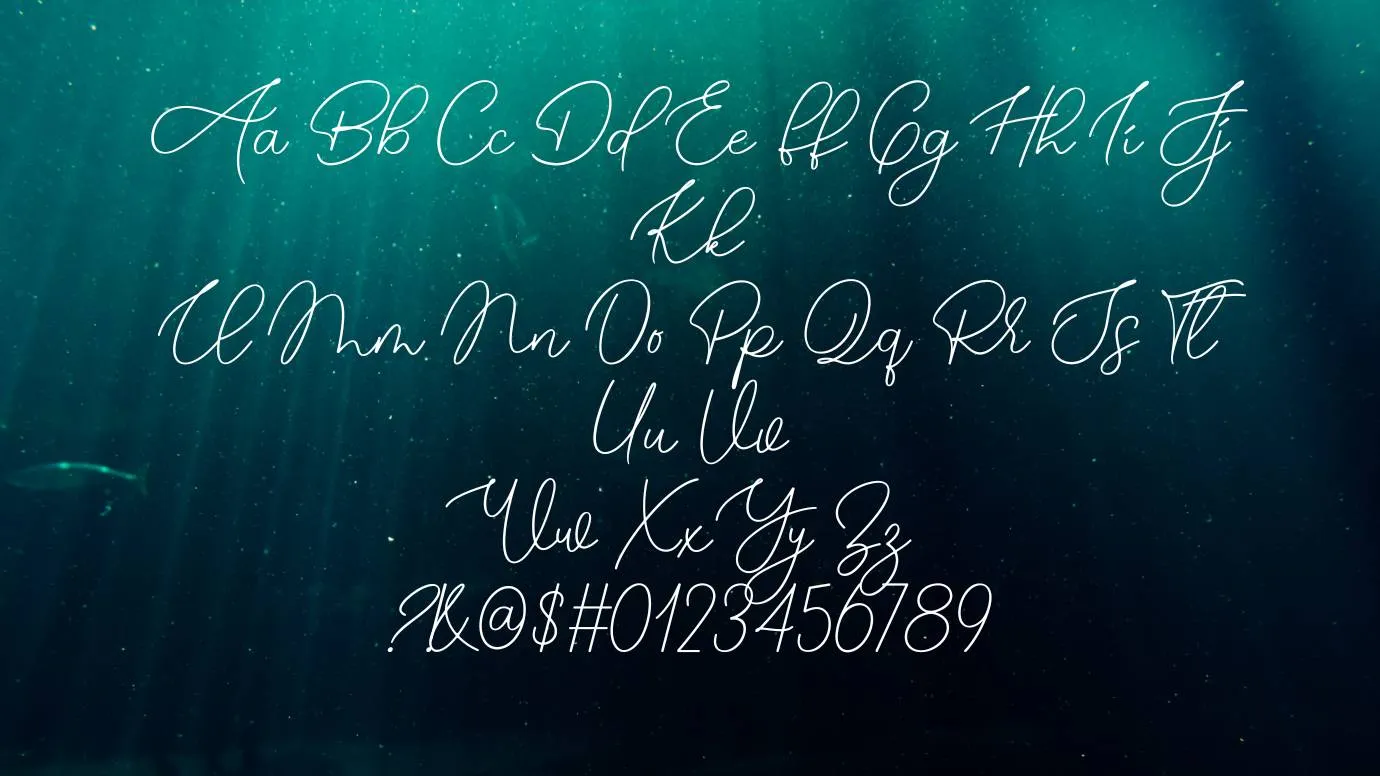
Barlette Font Family comes in handwritten. Fourlines Design is the designer and publisher of this font. This font has oblique and bold styles which are suitable for different projects.
The free version of this font is also suitable for making pairing with its closest font such as austin pen font. It has fantastic features that you can apply for different advanced designing purposes.
Barlette Font